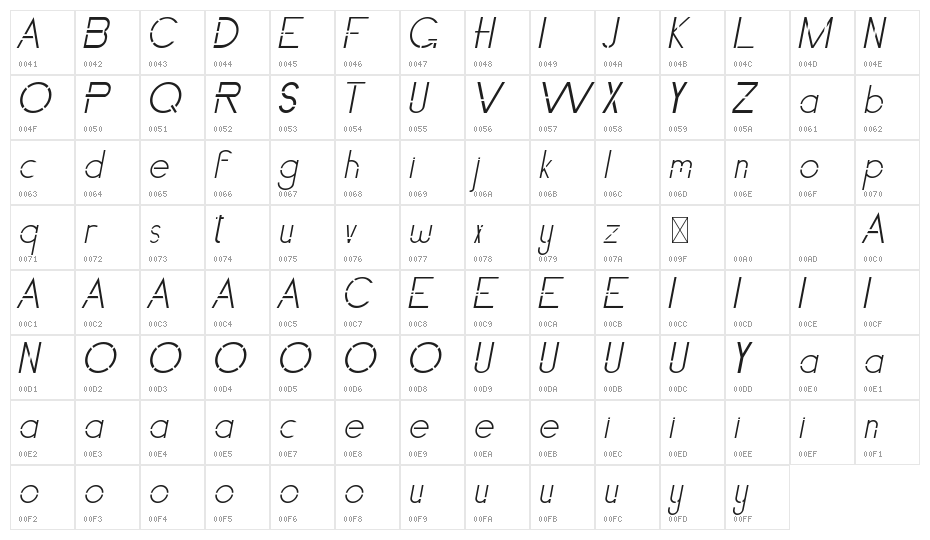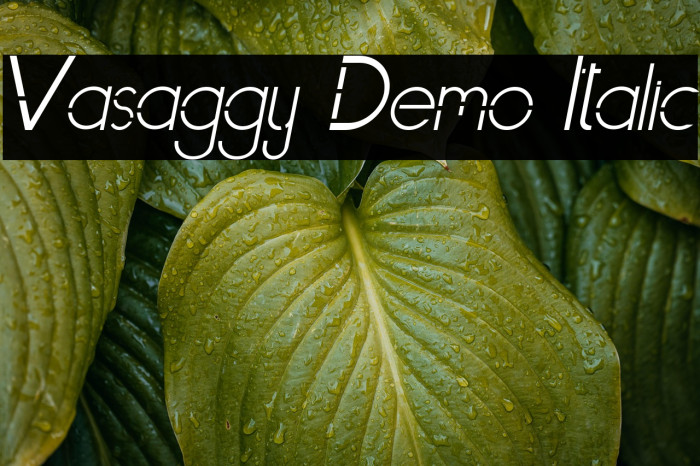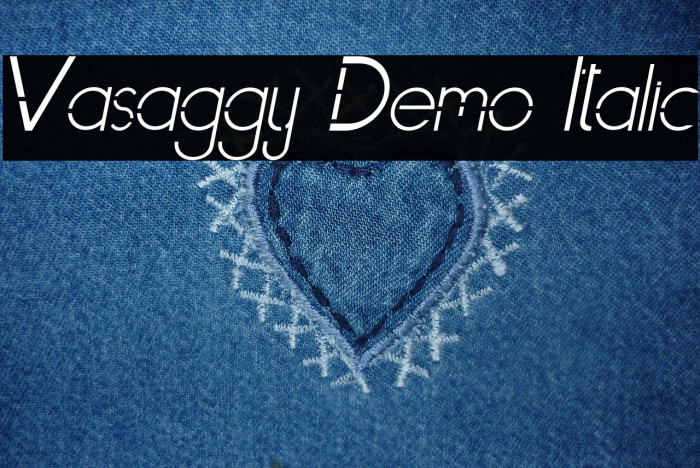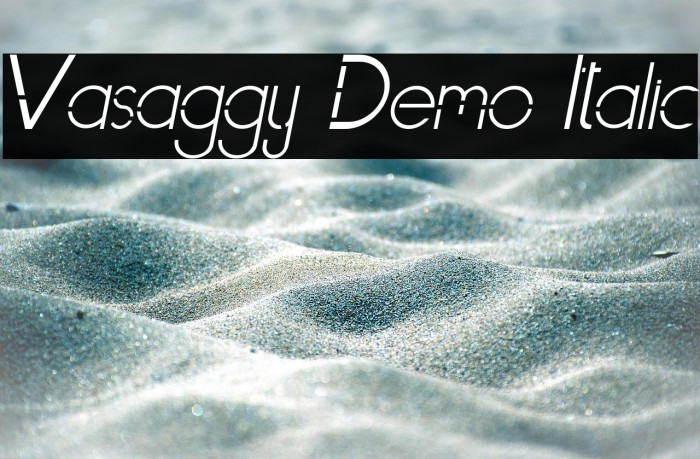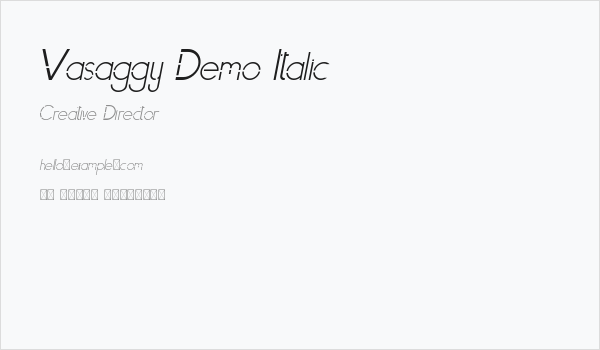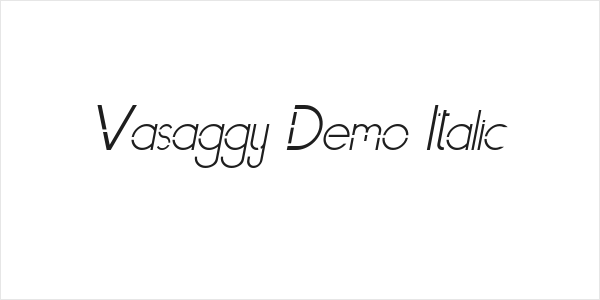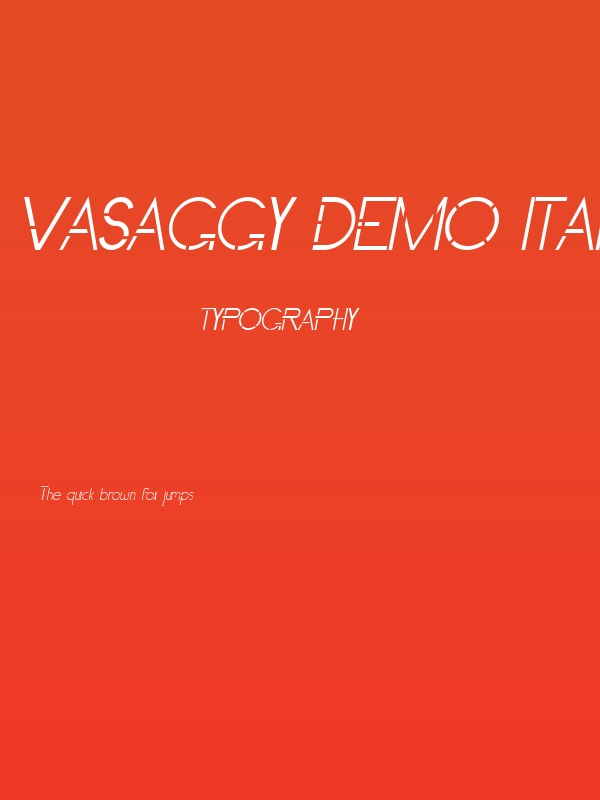
Vasaggy Demo Italic Font
Vasaggy Demo Italic Description
This font features a modern, geometric design with a distinct italic slant, giving it a dynamic and forward-moving appearance. The characters are composed of clean, straight lines and sharp angles, creating a sense of precision and sophistication. The uppercase and lowercase letters maintain a consistent style, with a unique cut-out effect that adds a contemporary flair. The numerals and special characters follow the same design principles, ensuring uniformity across all glyphs. This font is ideal for projects that require a sleek and modern aesthetic, such as branding, advertising, and digital media.
| Proposed Projects | Ideal for branding, advertising, digital media, and modern design projects. |